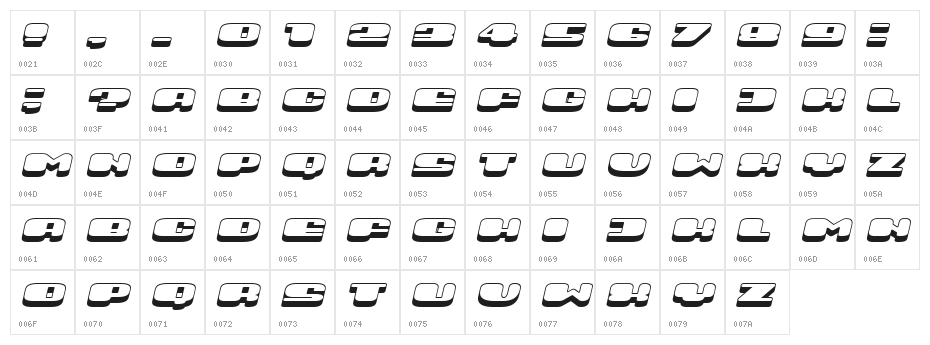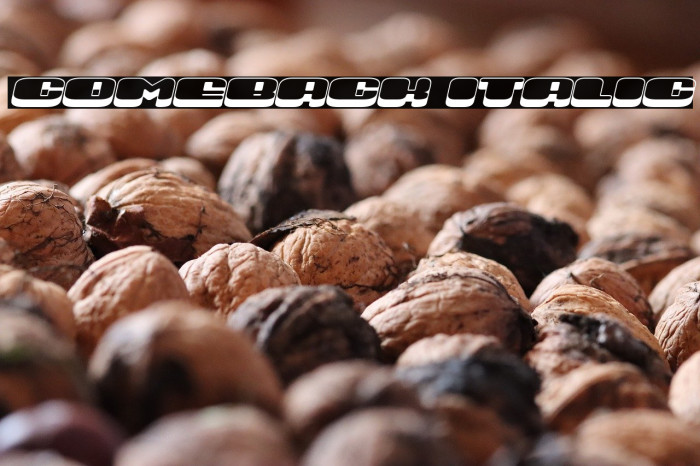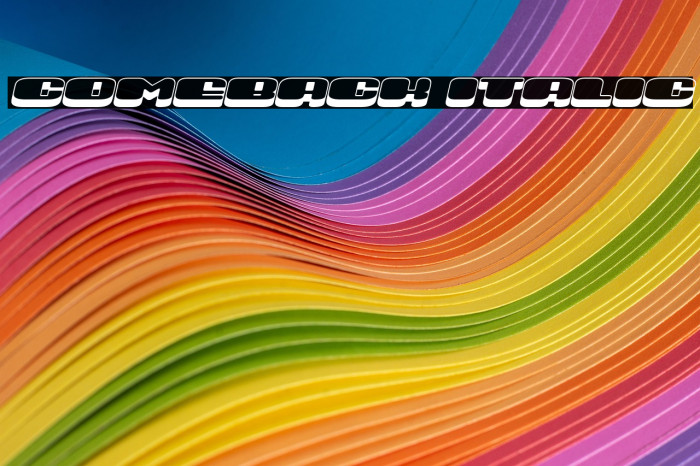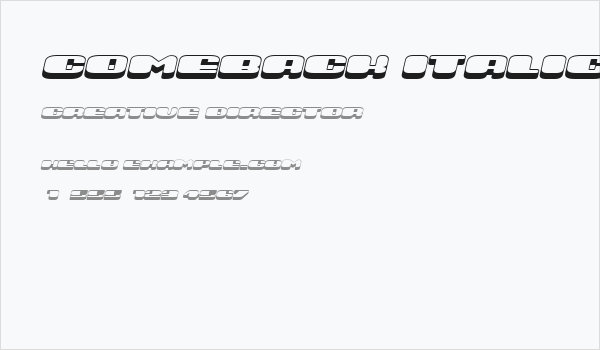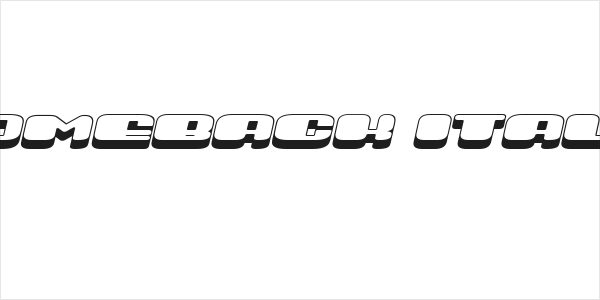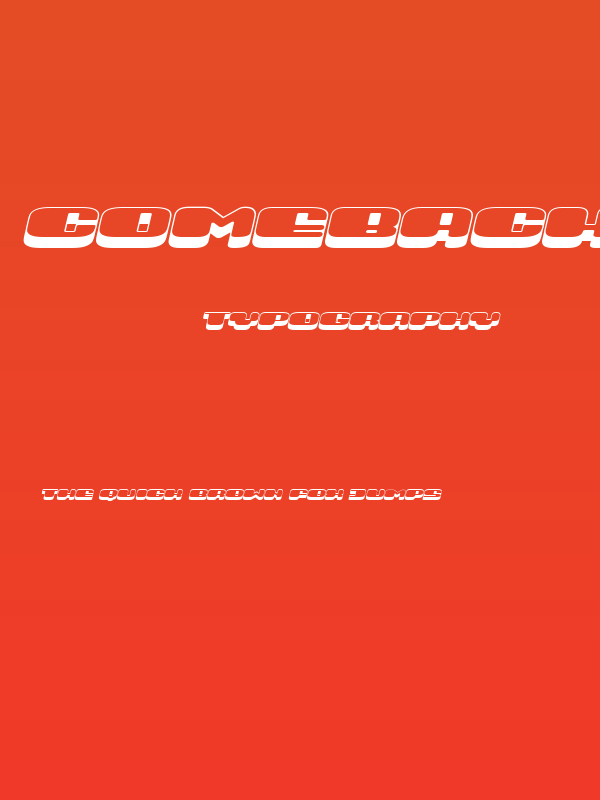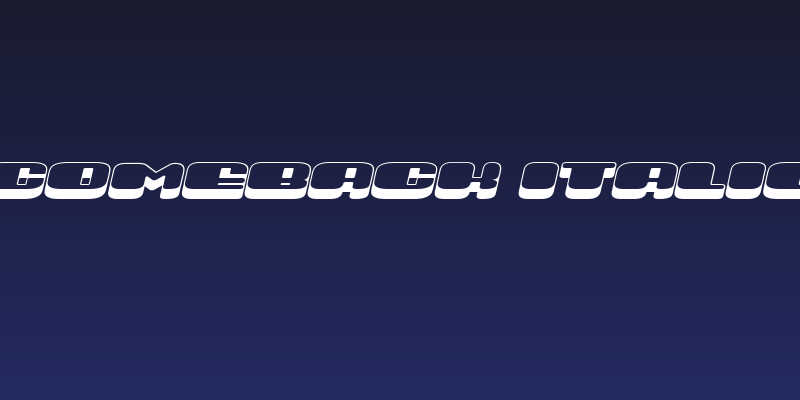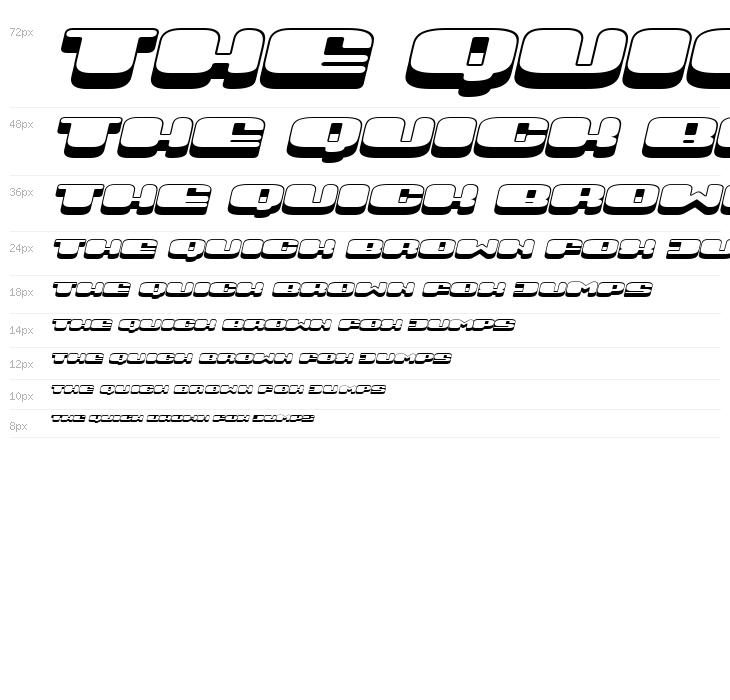
Comeback Italic Font
Comeback Italic Description
This font features a bold, rounded style with a distinct three-dimensional effect, giving it a playful and modern appearance. The characters are wide and have a consistent thickness, contributing to a strong visual impact. The italic slant adds a dynamic feel, making it suitable for attention-grabbing designs. The numbers and special characters maintain the same bold and rounded characteristics, ensuring uniformity across all elements. The font's unique style makes it ideal for projects that require a fun and engaging aesthetic.
| Proposed Projects | Ideal for posters, logos, video game graphics, and children's book covers. |